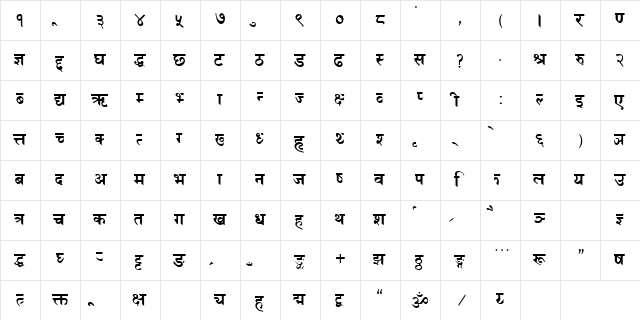
AMAA NETWORK CONSULTANT Regular
Design Context for AMAA NETWORK CONSULTANT Typeface
AMAA NETWORK CONSULTANT offers clean, dependable letterforms without strong stylistic allegiance, making it a practical choice for designers who need flexibility.
Pro Tip: Use AMAA NETWORK CONSULTANT in both headline and body roles to test its range before committing to a single application.